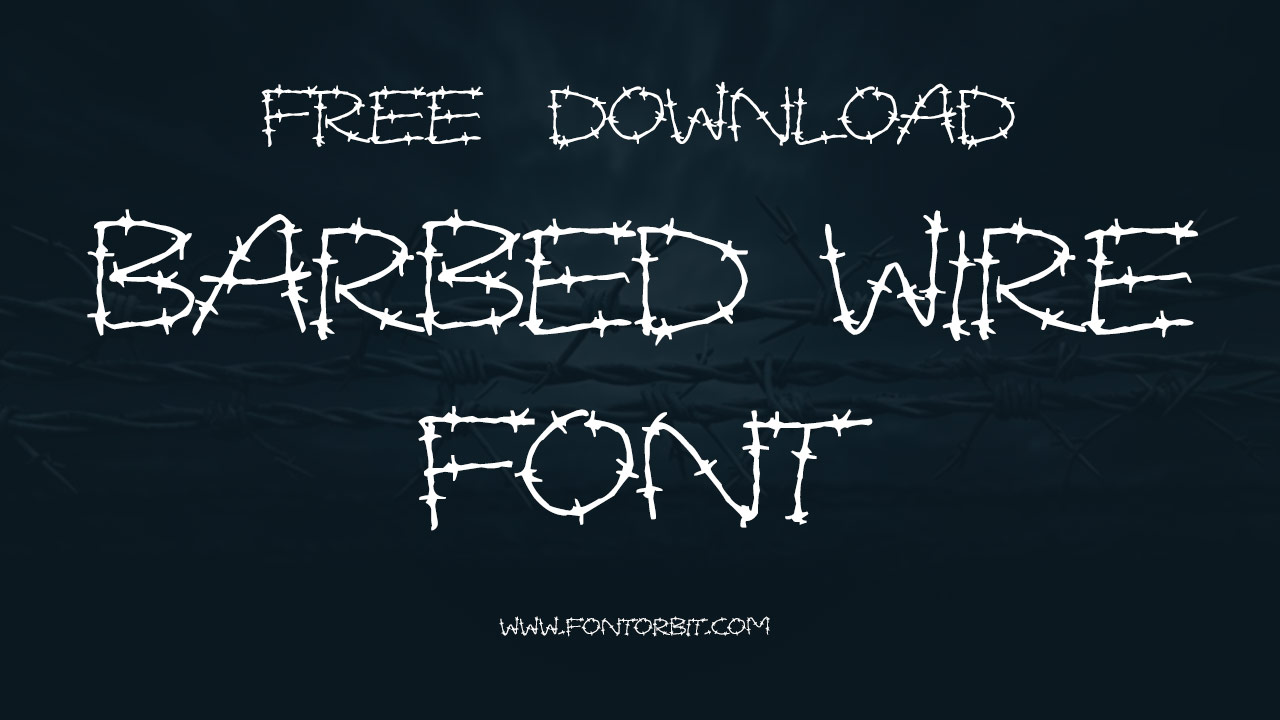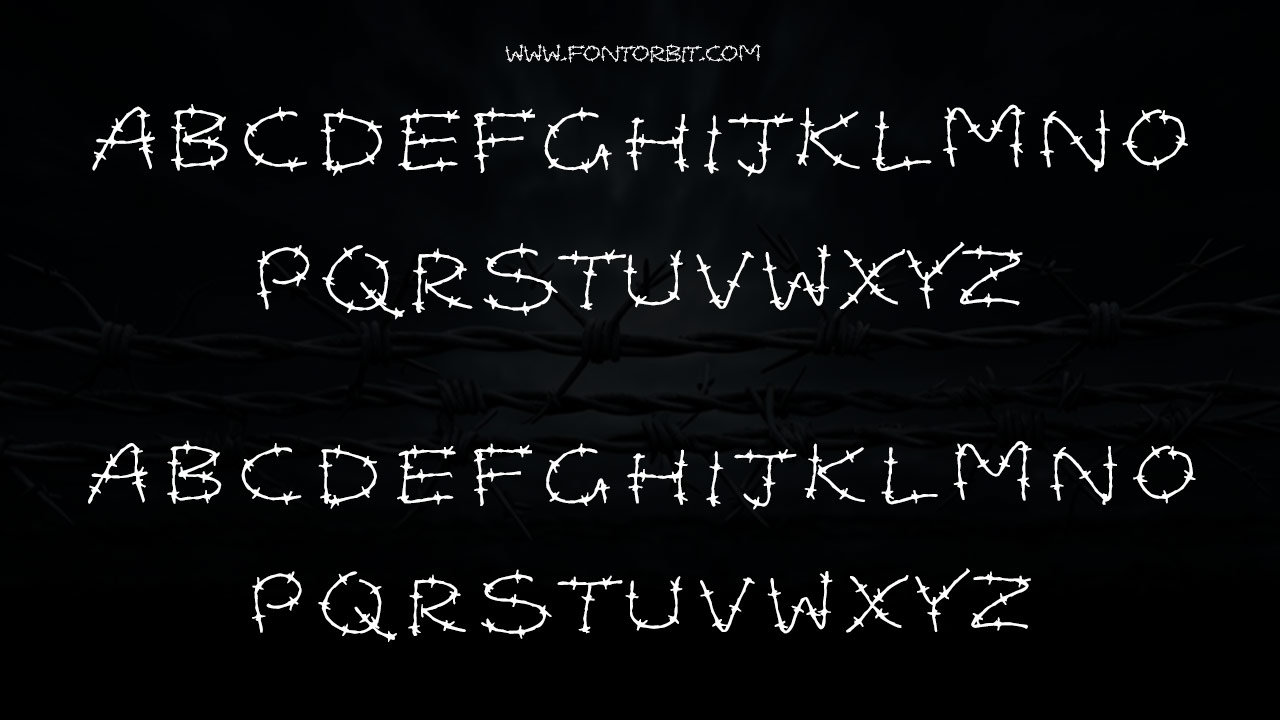
Barbed Wire Font is a Fancy typeface characterized by its intricate and edgy design, which mimics the appearance of barbed wire. It is particularly suitable for creative projects requiring a bold and striking visual impact.
Barbed Wire Font is ideal for adding a distinctive and gritty touch to a variety of projects. Its unique design makes it well-suited for:
- Music album covers
- Posters for events or concerts
- Grunge-themed branding
- Apparel
- Merchandise graphics
- Social media graphics
- Creative text overlays
The Barbed Wire Font Found In Use
Barbed Wire Font is often used in projects that seek to convey a sense of edginess and rebellion. It works exceptionally well in music, fashion, and promotional materials where a bold appearance is desired. The font is free to use for personal projects.
Barbed Wire Font is a bold display typeface perfect for a range of creative uses. It’s ideal for making statements, enhancing branding materials, and adding an edgy touch to any design project. Whether for personal use, this font brings a unique visual flair to your work.
1.What Are The Characteristics Of Barbed Wire Font?
Barbed Wire Font features intricate and edgy designs that mimic the look of barbed wire, making it perfect for bold and striking applications.
2.What Are The Considerations For Using Barbed Wire Font In Branding?
Ensure the font aligns with your brand’s edgy and rebellious aesthetic. It is ideal for brands in the music or fashion industries but may not suit more traditional themes.
3.What Are The Limitations Of Using Barbed Wire Font In Design?
Its bold design might not convey a sense of elegance or professionalism and may not be suitable for more formal or classic designs.
4.What Are The Differences Between Barbed Wire Font And Other Display Fonts?
Barbed Wire Font features a unique, edgy design with intricate details, while other display fonts may have varied stylistic elements, such as cleaner or more traditional characteristics.
5.What Do You Want From A Barbed Wire Font?
Users typically seek a bold, edgy typeface that provides a striking look for a range of design projects, from music to fashion.